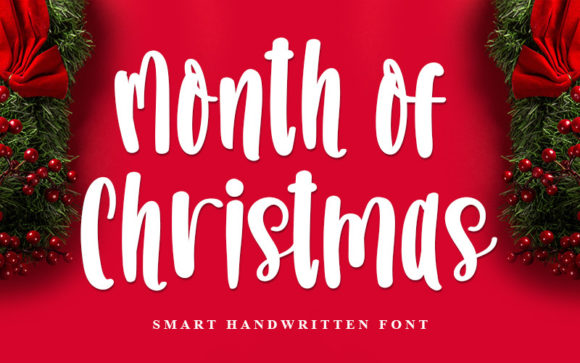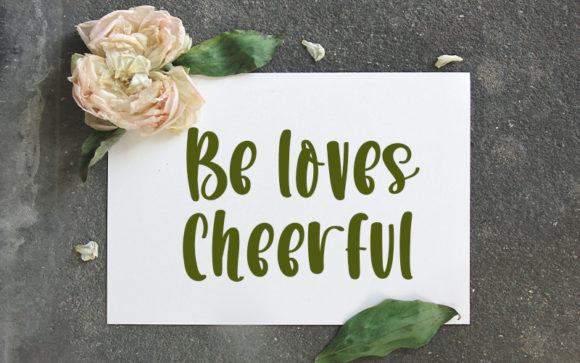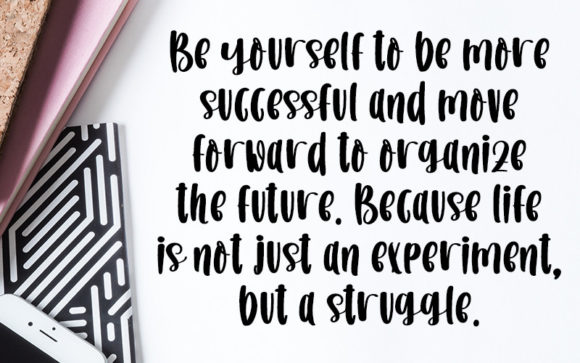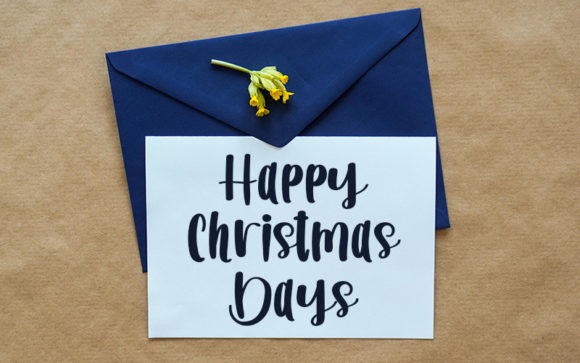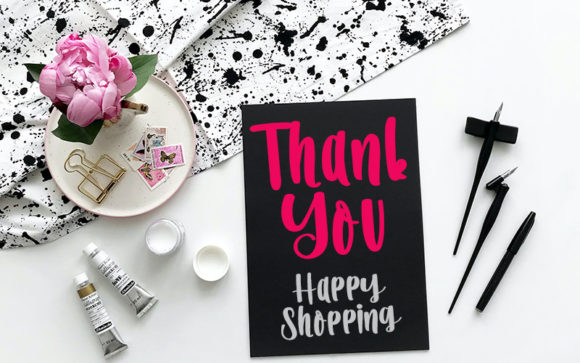
Month of Christmas Font
About Month of Christmas Font
Month of Christmas feels equally charming and elegant. It looks stunning on wedding invitations, thank you cards, quotes, greeting cards, logos, business cards and every other design which needs a handwritten touch.